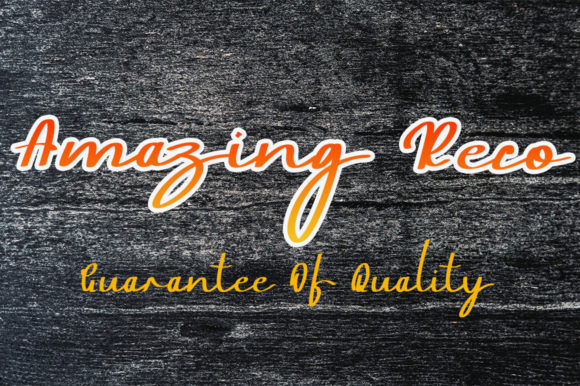
Introducing the Amazing Reco Font: Elevate Your Designs with Elegance and Class
In the world of typography, fonts play a crucial role in conveying the tone and aesthetic of a design. For those seeking a beautiful and refreshing look, the Amazing Reco Font is an excellent choice. This lovely and delicate script font exudes elegance and class, making it perfect for designers and crafters who want to add a touch of sophistication to their work.
What is Amazing Reco Font?
Amazing Reco is a meticulously crafted script font designed to bring a sense of refinement and luxury to your designs. Its delicate strokes and elegant letterforms make it an ideal choice for projects that require a high level of sophistication. Whether you’re working on a branding project, wedding invitation, or social media graphic, Amazing Reco Font is sure to impress.
Key Features of Amazing Reco Font
- Elegant and Delicate: Amazing Reco Font features delicate strokes and elegant letterforms that add a touch of sophistication to your designs.
- Script Style: This font is a beautiful example of a script font, perfect for adding a personal and creative touch to your work.
- Highly Versatile: Amazing Reco Font can be used for a wide range of design projects, from branding and advertising to wedding invitations and social media graphics.
- Easy to Read: Despite its delicate nature, Amazing Reco Font is highly legible, making it perfect for use in both digital and print designs.
Who Can Benefit from Amazing Reco Font?
Amazing Reco Font is perfect for a variety of designers and crafters, including:
- Graphic Designers: Add a touch of elegance to your branding, advertising, and marketing materials.
- Wedding Planners: Create beautiful and sophisticated wedding invitations, stationery, and decor.
- Social Media Influencers: Elevate your social media graphics and posts with a font that exudes class and sophistication.
- Crafters: Use Amazing Reco Font to add a personal touch to your handmade crafts, such as cards, gift tags, and scrapbooking.
- Pair it with a bold font: Combine Amazing Reco Font with a bold, sans-serif font for a striking contrast.
- Use it for headlines: Amazing Reco Font is perfect for headlines and titles, where its elegant and delicate nature can shine.
- Experiment with colors: Try pairing Amazing Reco Font with a range of colors to find the perfect combination for your design.
| Font Name | Amazing Reco Font |
| Author | Rett’s Creative |
In conclusion, the Amazing Reco Font is a beautiful and elegant script font that is perfect for designers and crafters seeking to add a touch of sophistication to their work. Its delicate strokes, elegant letterforms, and high level of legibility make it an excellent choice for a wide range of design projects. Whether you’re working on a branding project, wedding invitation, or social media graphic, Amazing Reco Font is sure to impress.